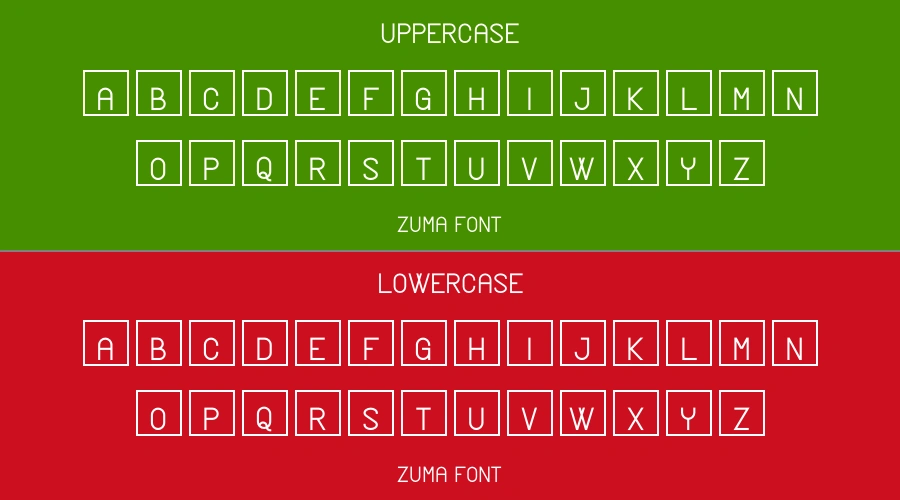
About Zuma Font
Zuma Font stands out for its distinctive combination of expressive energy and reliability. Ideal for heritage brands, it provides the impact and design excellence that professional projects demand. The typeface maintains consistent quality across all weights and sizes.
Key features include refined architectural precision and practical stylistic sets, enhancing typographic expression. In product names applications, Zuma Font demonstrates exceptional brand recognition. The serif length and lifestyle alignment contribute to its distinctive character and professional appeal.